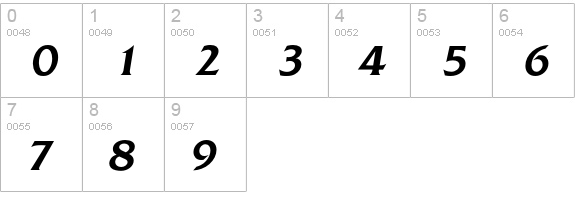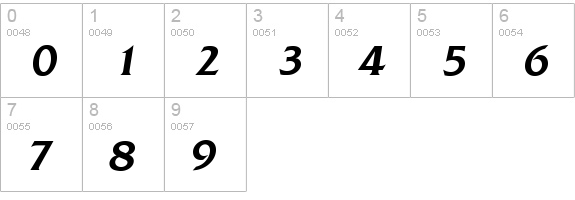
Quadrat-MediumIta is a captivating and versatile font that effortlessly combines elegance with a touch of modernity. Its unique design features a perfect balance between sharp edges and smooth curves, creating a visually striking typeface that commands attention. With its medium weight and italic styling, Quadrat-MediumIta exudes a sense of sophistication and class, making it ideal for a wide range of design projects. Whether used for website headers, print materials, or branding elements, this font adds a touch of professionalism and refinement to any composition. One of the most remarkable aspects of Quadrat-MediumIta is that it is freely available to download at FontsMarket.com. This means that designers and creatives can easily access and utilize this stunning font without any cost, making it an invaluable resource in their artistic endeavors. Its availability as a free download allows for greater accessibility and creative freedom, enabling designers to bring their visions to life without any limitations. With its clean and legible letterforms, Quadrat-MediumIta ensures that your message is conveyed effortlessly to your audience. The font's balanced proportions and careful attention to detail make it a pleasure to read, ensuring a comfortable and enjoyable reading experience. Whether you are a professional designer or simply someone looking to add a touch of elegance to your personal projects, Quadrat-MediumIta is a font that will undoubtedly exceed your expectations. Its versatility, combined with its free availability, makes it an exceptional choice for any creative endeavor. Unlock your design potential and download Quadrat-MediumIta today at FontsMarket.com.